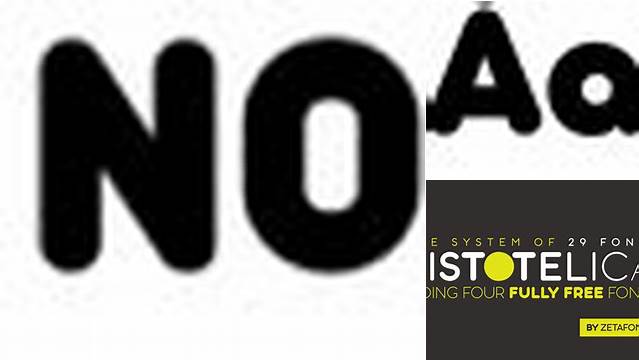
Aristotelica Pro Display Fat Font: Free Download & Uses
In the world of typography, finding the perfect font can make all the difference. A well-chosen font can elevate your design, making it more readable, engaging, and visually appealing. If you're on the hunt for a font that exudes boldness, elegance, and classic appeal, look no further than the Aristotelica Pro Display Fat font. This font is a fantastic choice for designers and creatives who aim to make a strong statement with their text. In this comprehensive guide, we'll delve into the features of the Aristotelica Pro Display Fat font, its applications, and where you can find it, including options for a free download. Let's explore why this font might be the perfect addition to your typographic toolkit.
Aristotelica Pro Display Fat is a typeface that stands out due to its robust and assertive character. It's part of the larger Aristotelica Pro family, known for its classical roots and modern adaptations. The "Fat" variant is specifically designed to make a significant visual impact, making it ideal for headlines, posters, and other display purposes where you need to grab the viewer's attention. This font is not just about being bold; it also carries an air of sophistication, thanks to its well-balanced letterforms and elegant curves. When we talk about Aristotelica Pro Display Fat, we're talking about a font that commands attention. The thick strokes and substantial letterforms ensure that your message is not only seen but also felt. It’s a typeface that doesn’t shy away from making a statement, perfect for headlines, titles, and any context where you need your text to stand out. But beyond its boldness, Aristotelica Pro Display Fat also possesses a certain elegance. The curves and shapes are carefully crafted, resulting in a typeface that feels both powerful and refined. This balance makes it a versatile choice for a variety of design projects, from branding to editorial design. This font is more than just a set of letters; it’s a tool for visual communication. Its design is rooted in classical typography, which gives it a timeless quality. Yet, it also has a modern edge that makes it suitable for contemporary designs. Whether you’re working on a vintage-inspired project or something cutting-edge, Aristotelica Pro Display Fat can adapt to your needs. In the design world, legibility is just as crucial as aesthetics. Aristotelica Pro Display Fat strikes a balance between visual impact and readability. While it’s bold and attention-grabbing, it doesn’t sacrifice clarity. The letterforms are designed to be easily recognizable, ensuring that your message is effectively communicated. So, when you choose Aristotelica Pro Display Fat, you’re not just selecting a font for its looks; you’re choosing a typeface that prioritizes clear communication.
When considering a font for your project, it’s essential to understand its key features. Aristotelica Pro Display Fat boasts several characteristics that make it a standout choice. First and foremost is its weight. The "Fat" in its name indicates its heavy strokes, which make it ideal for creating high-impact headlines and titles. This is a font designed to be noticed, ensuring your message is front and center. Another important feature is its legibility. Despite its boldness, Aristotelica Pro Display Fat maintains excellent readability, even at smaller sizes. This is crucial because while you want to make a statement, you also want your text to be easily read and understood. The carefully crafted letterforms ensure that each character is distinct and clear. The font's versatility is another key advantage. While it's perfect for display purposes, it can also be used in shorter blocks of text where you want to add emphasis. Its classic yet modern design allows it to fit seamlessly into a variety of projects, from branding and advertising to editorial design and web layouts. The balanced proportions of Aristotelica Pro Display Fat contribute to its overall aesthetic appeal. The letter heights, widths, and spacing have been meticulously designed to create a harmonious visual rhythm. This attention to detail results in a font that is both visually striking and pleasing to the eye. Additionally, Aristotelica Pro Display Fat often comes with a comprehensive character set, including various weights, styles, and glyphs. This provides designers with a wide range of options to work with, ensuring that they can achieve the exact look and feel they desire. The inclusion of alternative characters and ligatures can further enhance the font's versatility and allow for unique typographic compositions. From a technical standpoint, Aristotelica Pro Display Fat is designed to perform well in both print and digital environments. It is typically available in various formats, such as OTF (OpenType Font) and TTF (TrueType Font), ensuring compatibility with a wide range of software and devices. This means you can use it confidently across different platforms and applications. In summary, the key features of Aristotelica Pro Display Fat—its bold weight, legibility, versatility, balanced proportions, and comprehensive character set—make it a powerful tool for any designer looking to make a lasting impression.
The versatility of the Aristotelica Pro Display Fat font makes it suitable for a wide array of design applications. Its bold and commanding presence makes it particularly effective in headlines and titles, where it can immediately capture the reader's attention. Think about the impact of a bold headline on a magazine cover or a website banner—Aristotelica Pro Display Fat excels in these scenarios. In the realm of branding, this font can be a powerful asset. It conveys a sense of strength and authority, making it an excellent choice for logos and brand identities that aim to project confidence and reliability. Imagine a company logo that uses Aristotelica Pro Display Fat; it's likely to leave a memorable impression. For advertising campaigns, the font's attention-grabbing nature can help ensure that your message doesn't get lost in the noise. Whether it's a print ad in a magazine or a digital banner on a website, using Aristotelica Pro Display Fat can help your content stand out. Its legibility also ensures that your message is clearly communicated, even in a fast-paced environment. In the world of editorial design, Aristotelica Pro Display Fat can add a touch of elegance and sophistication to your layouts. It can be used for section headers, chapter titles, and other display elements to create a visual hierarchy and guide the reader through the content. Its classic yet modern aesthetic makes it a perfect fit for a variety of editorial styles, from formal to contemporary. Posters and signage are other areas where this font shines. Its bold weight ensures that your message is visible from a distance, making it ideal for event posters, directional signs, and other forms of visual communication. Whether you're promoting a concert, directing traffic, or announcing a sale, Aristotelica Pro Display Fat can help you get your message across. In the digital realm, the font is equally effective. It can be used on websites, landing pages, and social media graphics to create a strong visual presence. Its clean lines and distinct letterforms make it easy to read on screens, ensuring a positive user experience. Furthermore, Aristotelica Pro Display Fat can be used in packaging design to create a premium and eye-catching look. Its boldness can help your product stand out on the shelves, while its elegance can convey a sense of quality and sophistication. Whether it's a luxury item or a high-end product, this font can enhance the overall presentation. In short, the applications of Aristotelica Pro Display Fat are vast and varied. Its ability to command attention, combined with its legibility and versatility, makes it a valuable tool for designers across different disciplines.
Using the Aristotelica Pro Display Fat font effectively involves more than just installing it and typing away. It's about understanding its strengths and using it in a way that enhances your design. Here are some tips to help you get the most out of this bold typeface. First and foremost, consider the context in which you're using the font. Aristotelica Pro Display Fat is a display font, meaning it's best suited for headlines, titles, and other large-format text. While it can be used in shorter blocks of text, it's generally not ideal for body copy due to its heavy weight. Think of it as the headline act, not the supporting cast. When using Aristotelica Pro Display Fat, contrast is your friend. Pair it with a lighter, more understated font for body text to create a visual hierarchy and ensure readability. A classic serif or a clean sans-serif can work well as complementary typefaces. The key is to create a balance between the boldness of Aristotelica Pro Display Fat and the simplicity of the supporting font. Kerning and tracking are crucial when working with display fonts. Pay close attention to the spacing between letters and adjust as needed to achieve a visually pleasing result. Tightening the kerning can sometimes enhance the impact of the font, but be careful not to make it too crowded. Similarly, adjusting the tracking can help create a more open and airy feel. Color can play a significant role in how Aristotelica Pro Display Fat is perceived. Using it in a bold color can amplify its impact, while using it in a more subdued tone can give it a more sophisticated feel. Experiment with different color combinations to find what works best for your design. Size matters when it comes to Aristotelica Pro Display Fat. Using it at a large size will showcase its bold character and make a strong statement. However, be mindful of the overall balance of your design. Don't let the font overpower other elements. If you're using Aristotelica Pro Display Fat in a logo, consider its scalability. Make sure it remains legible and impactful at different sizes, from business cards to billboards. This is where the font's well-crafted letterforms truly shine. Avoid overusing Aristotelica Pro Display Fat. Like any strong design element, it can lose its impact if used too frequently. Use it strategically to highlight key messages and create visual interest. Think of it as the spice in your design recipe—a little goes a long way. Finally, experiment and have fun with the font. Try different combinations, sizes, and colors to discover its full potential. The more you play with it, the better you'll understand how to use it effectively. In conclusion, using Aristotelica Pro Display Fat effectively is about understanding its strengths, creating contrast, paying attention to details, and using it strategically. With these tips in mind, you can harness the power of this bold typeface to create stunning designs.
In summary, the Aristotelica Pro Display Fat font is a powerful and versatile typeface that can elevate your design projects. Its boldness and elegance make it an excellent choice for headlines, titles, branding, and more. Whether you're aiming to make a strong statement or add a touch of sophistication to your work, this font is a valuable asset to have in your typographic toolkit. We've explored its key features, its various applications, and where you can find it, including options for a free download (while always prioritizing reputable sources). We've also shared some tips for using it effectively, ensuring that you can harness its full potential. Remember, the right font can make all the difference in your designs. Aristotelica Pro Display Fat is a testament to that, offering a perfect blend of impact and refinement. So, whether you're a seasoned designer or just starting out, consider adding this font to your collection and see how it can transform your work. Guys, it’s all about making your design pop and Aristotelica Pro Display Fat definitely helps with that! So go ahead, give it a try and watch your creations come to life. Happy designing!